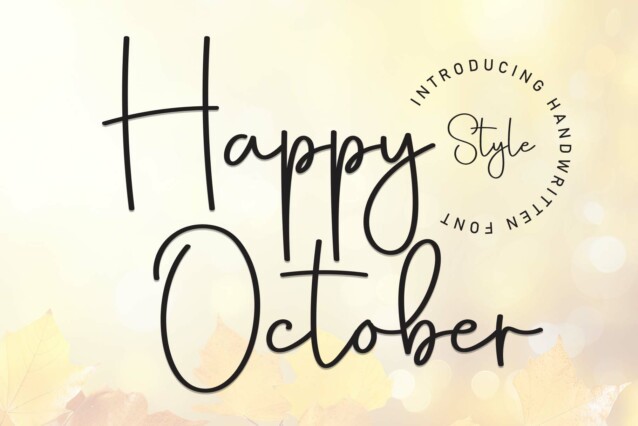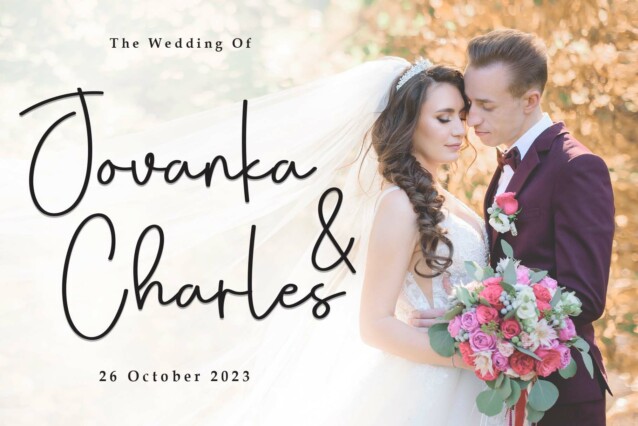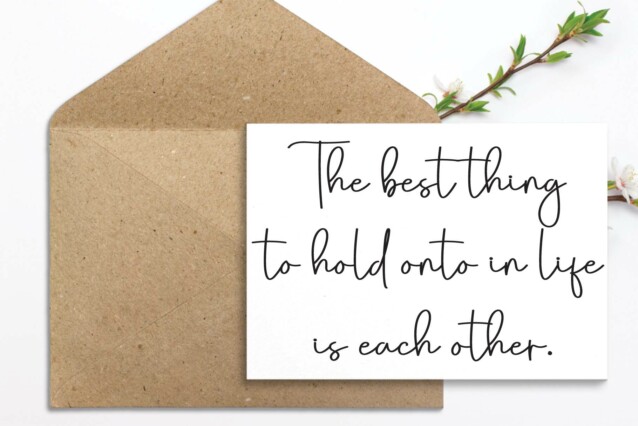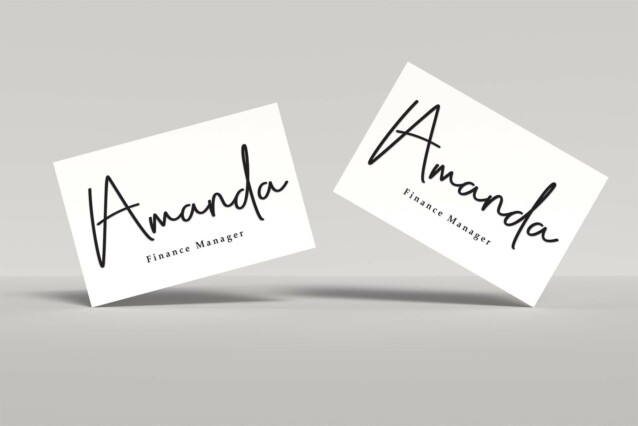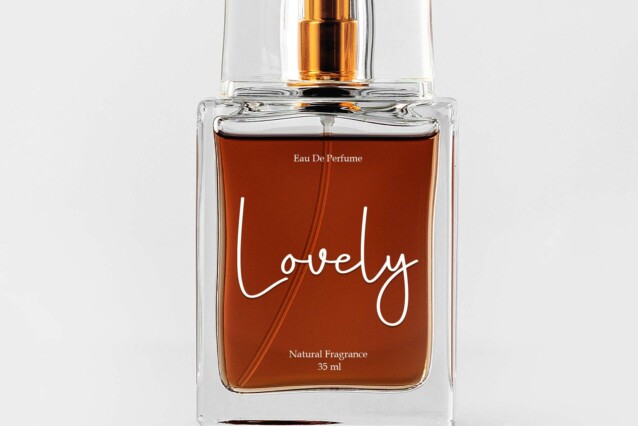
Happy October Script Font
Happy October Script Font is a sweet and friendly handwritten font. Its natural and unique style makes it incredibly fitting to a large pool of designs. The only limit is your imagination!